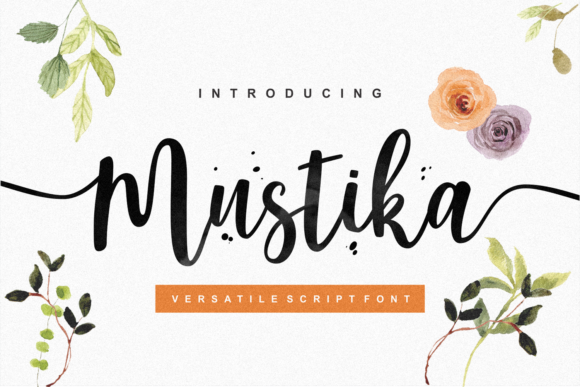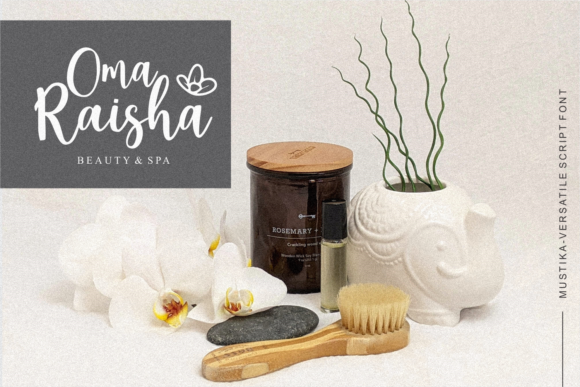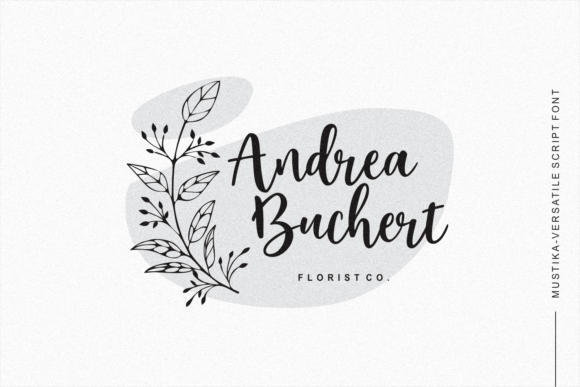
Introduction to Mustika Font
Imagine you’re a graphic designer tasked with creating the perfect wedding invitation for a client’s special day. The pressure is on to create something truly unique and memorable. You’ve spent hours browsing through design resources, searching for the perfect font to capture the essence of love and commitment. And then, you stumble upon the Mustika Font – a gorgeous and stylish calligraphy font that instantly elevates your design to the next level.
As a designer, you know that having access to high-quality design resources like the Mustika Font can be a game-changer for your creative projects. With its PUA encoded features, you can easily access all the glyphs and swashes you need to create stunning designs. Whether you’re working on a wedding invitation, a greeting card, or a branding material, the Mustika Font is a valuable addition to your design toolkit.
Key Features of Mustika Font
- High-quality design: Mustika Font is a carefully crafted, high-quality design resource ideal for creative projects.
- Unique characteristics: Mustika Font features a unique, hand-drawn design with intricate details and subtle flair.
Honest Review: Mustika Font
As a designer, I’m always on the lookout for high-quality fonts to elevate my creative projects. Recently, I stumbled upon the Mustika Font, and I must say it’s been a game-changer. This elegant script font is perfect for adding a touch of sophistication to any design.
One of the standout features of the Mustika Font is its versatility. It’s ideal for use as a logo font, headings, or even body text. The font is available for free download, which is a major plus for designers on a budget.
What works well: ✨ The font’s transparent background makes it easy to layer with other design elements. ✨ The Mustika Font is highly customizable, allowing you to adjust the size, color, and style to suit your design needs. ✨ The font’s unique flair adds a touch of personality to any design.
Limitations: ⚠️ The Mustika Font is not suitable for use in situations where a bold, sans-serif font is required. ⚠️ The font may not be compatible with older versions of certain software or operating systems.
Overall, I’m thoroughly impressed with the Mustika Font. Its high-quality design and versatility make it a valuable resource for designers working on a wide range of projects.
- Perfect for creative projects requiring a touch of elegance
- Highly customizable
Mustika Font
Tips for Getting the Most Out of Mustika Font
For a transparent background, use a PNG file of the font. This will allow you to layer it over other design elements without losing any detail. Experiment with different font sizes and styles to find the perfect look for your project.
The Mustika Font is a versatile design resource that can be used in a variety of creative projects, including logos, social media graphics, and marketing materials. Its high-quality design and transparent background make it a great choice for designers who want to add a professional touch to their work.